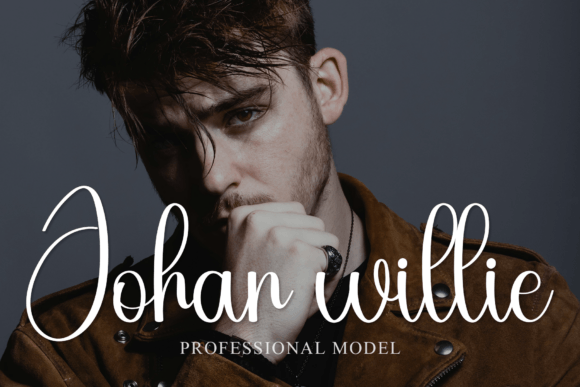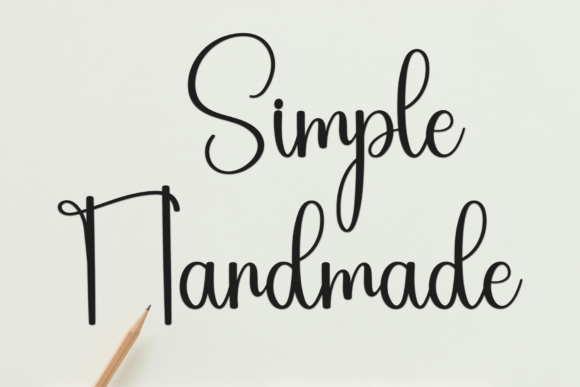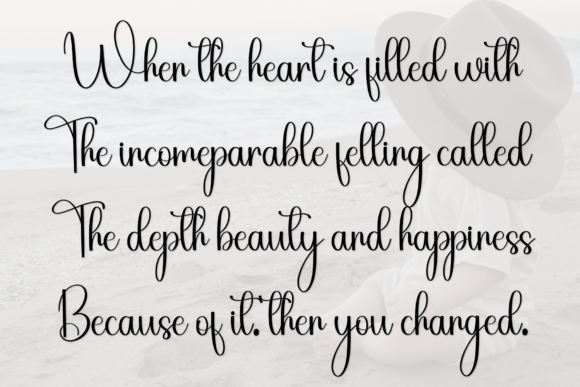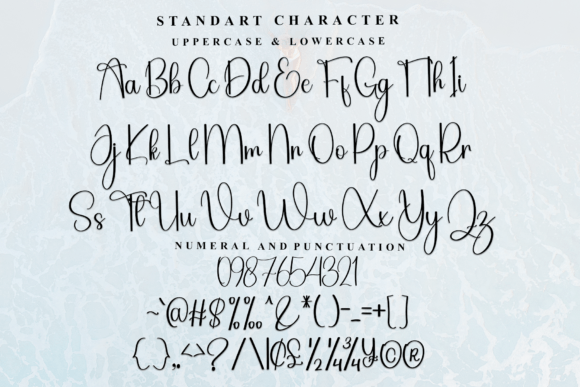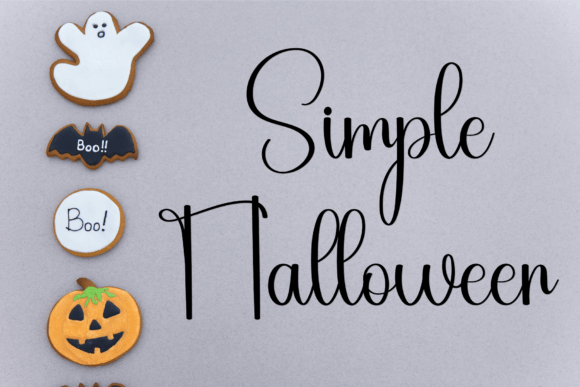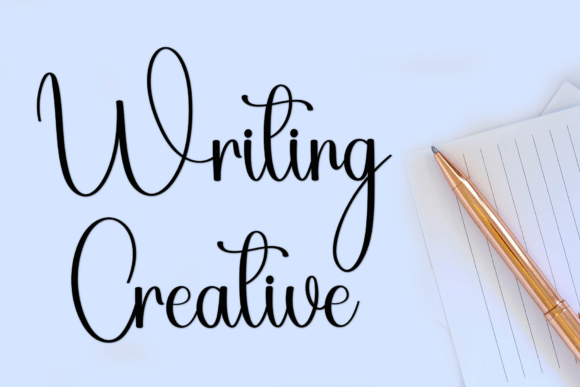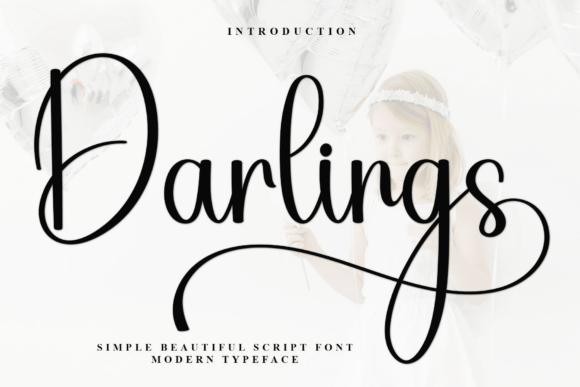
Discover the Charm of Darlings Font: Elevate Your Designs with Elegance
In the world of typography, fonts play a pivotal role in conveying messages, evoking emotions, and adding aesthetic value to designs. Among the myriad of fonts available, Darlings Font stands out for its unique blend of softness, distinction, and versatility. This beautiful and attractive font is not just a typeface; it’s an artistic statement that can transform your designs, crafts, and projects into visually appealing masterpieces.
The Essence of Darlings Font
Darlings Font is crafted with a soft touch, making it inherently elegant and approachable. Its uniqueness lies in its strokes, which are carefully designed to be distinctive and meaningful. This characteristic not only sets it apart from more conventional fonts but also gives it a deep sense of personality and charm. Whether you’re working on a project that requires a touch of sophistication or a dash of creativity, Darlings Font is up to the task.
A Wealth of Characters at Your Disposal
One of the significant advantages of Darlings Font is its extensive character set. Designers and crafters will appreciate the wide range of characters available, which can be used to meet various design needs. From intricate handicrafts to elaborate digital designs, this font provides the flexibility and creativity freedom one seeks. The characters are meticulously designed to ensure that they complement each other, creating a harmonious visual experience.
Versatility Across Applications
A Natural Fit for Various Products
The natural style of Darlings Font makes it an excellent choice for a wide array of products. Its aesthetic appeal is broad, allowing it to enhance the visual attractiveness of your work across different arts and designs. This adaptability is crucial for designers and crafters who aim to produce work that resonates with a diverse audience. By incorporating Darlings Font into your projects, you can significantly increase their appeal and make them stand out in a crowded marketplace.
Elevate Your Designs with Darlings Font
Incorporating Darlings Font into your designs is a straightforward process that can yield impressive results. Here are a few tips on how to make the most of this beautiful font:
- Pair it with Complementary Fonts: Darlings Font can be paired with other fonts to create stunning contrasts and visual hierarchies. Experiment with different combinations to find the perfect balance for your design.
- Experiment with Sizes and Weights: Don’t be afraid to play around with different sizes and weights of Darlings Font. This can add depth and emphasis to your designs, making them more engaging.
- Use it in Branding: The unique and attractive nature of Darlings Font makes it an excellent choice for branding projects. It can help create a memorable visual identity for your brand.
Darlings Font is more than just a typeface; it’s a design element that can elevate your projects to new heights of creativity and aesthetic appeal. Its soft touch, unique strokes, and extensive character set make it an invaluable tool for designers and crafters. Whether you’re working on digital designs, handicrafts, or branding projects, Darlings Font offers the versatility and elegance needed to make your work truly stand out. Embrace the charm of Darlings Font and discover a world of limitless design possibilities.